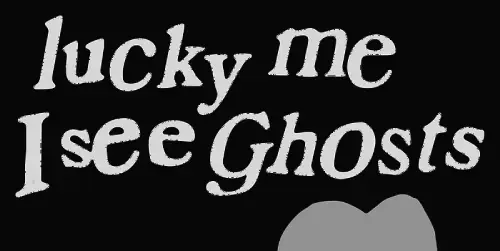
<title>Whoa Font</title>
<p>&#8221; Whoa Font &#8221; isn&#8217;t just a font; it&#8217;s a digital product that spun off from, and pays homage to, a big cultural thing: the <strong><a href="https://www.whoa.nu/" rel="nofollow noopener" target="_blank">Whoa.nu</a></strong> community.</p>
<p>That’s <strong>Whoa!</strong>. It’s not a fancy, perfect font. It’s a <em>digital spray can</em> created by a Swedish designer named <strong>Johan Waldenström</strong> in 2008. He made it for a hip-hop website called <strong>Whoa.nu</strong> (think of it like a secret club for rap fans and street artists). His goal? To fight back against boring, corporate fonts (like Arial or Times New Roman) and give the internet something that felt <em>real,</em> like art, not a computer.</p>